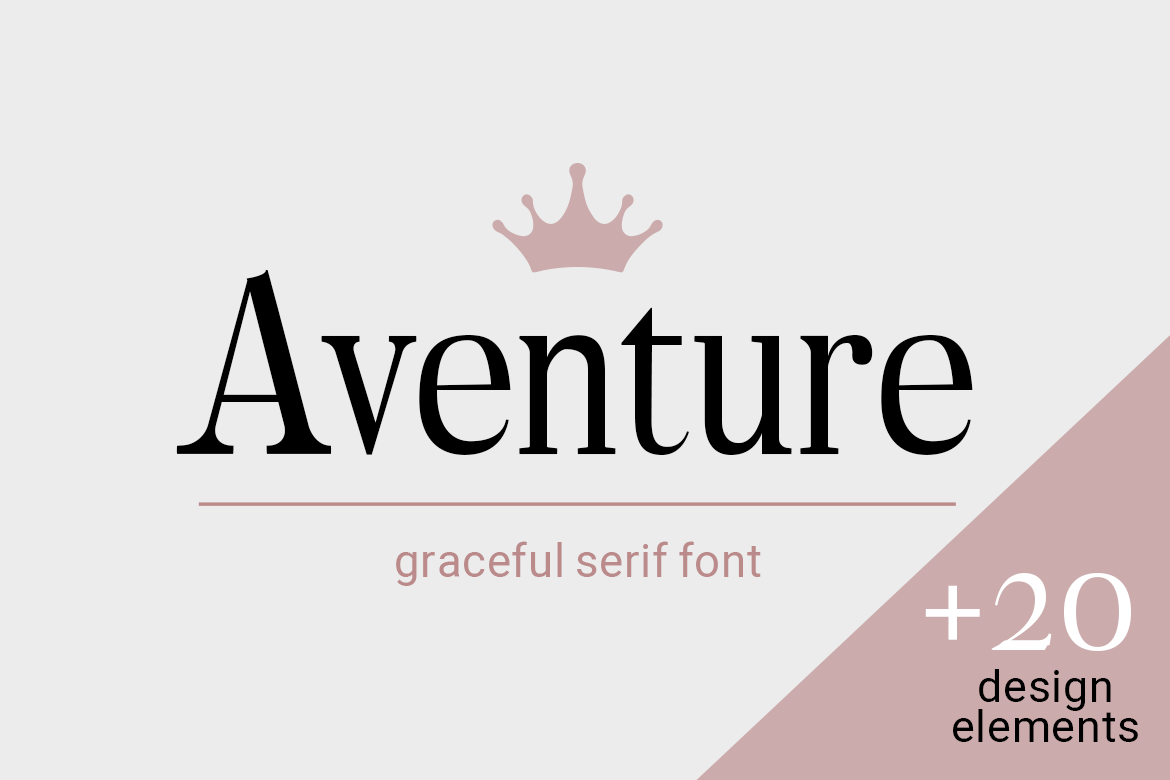
Aventure| graceful serif font
Aventure is a strong and elegant serif font. Beautiful and stylish, it is the perfect font for successful headers. The font is supplemented with decorative elements for more convenient design creation.